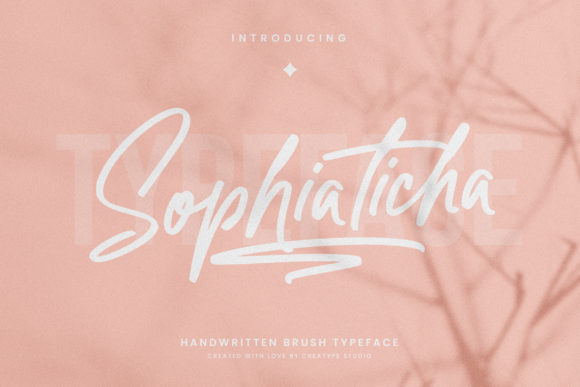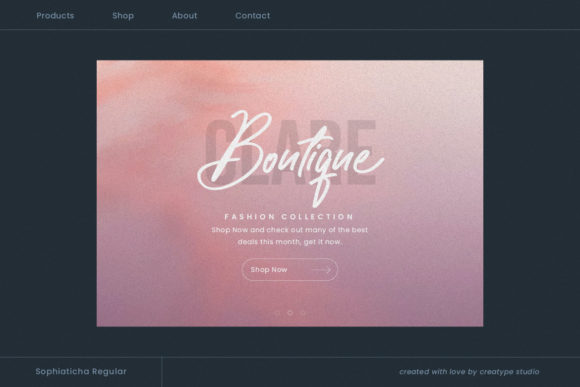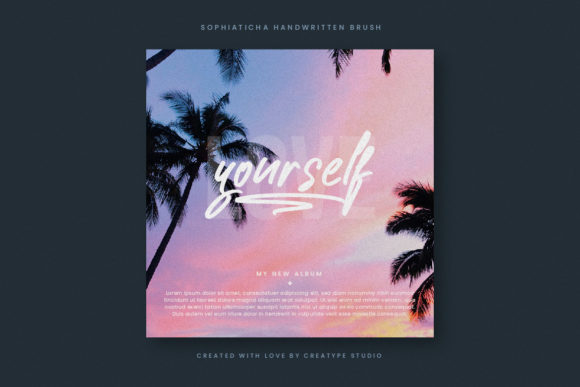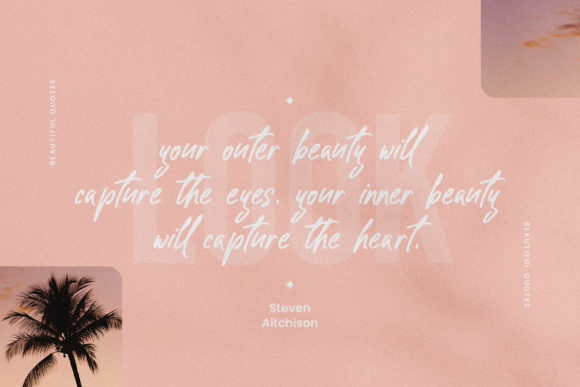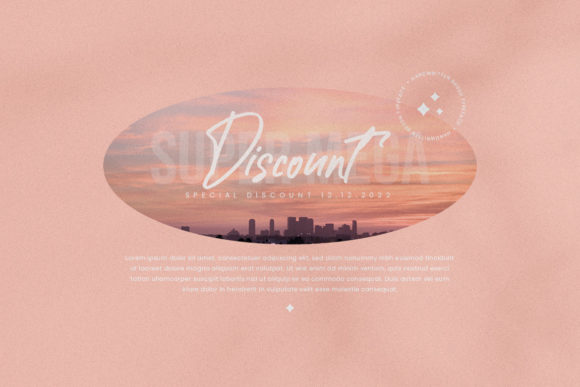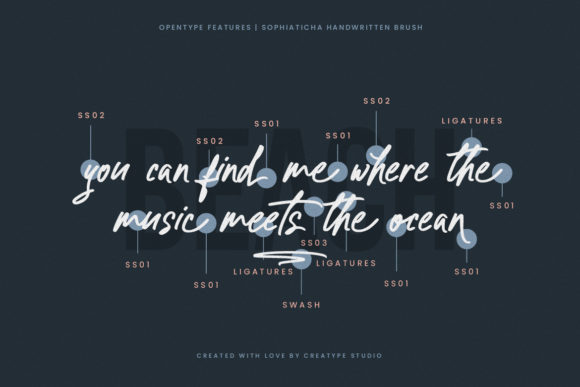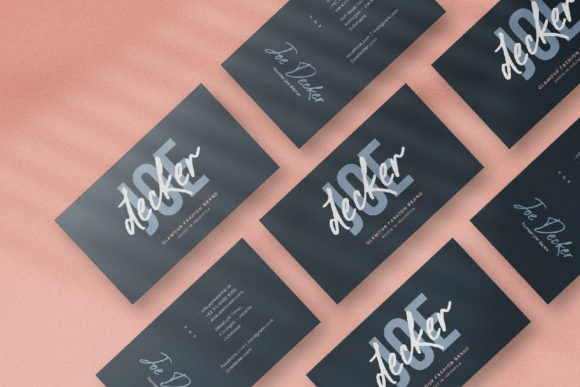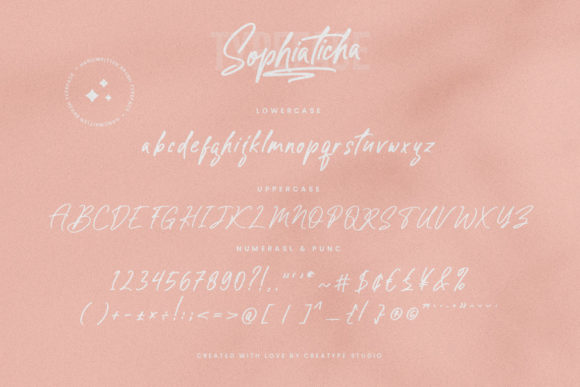
Sophiaticha Font
About Sophiaticha Font
Sophiaticha is a relaxed, brushed script font. This font is PUA encoded which means you can access all of the glyphs and swashes with ease!